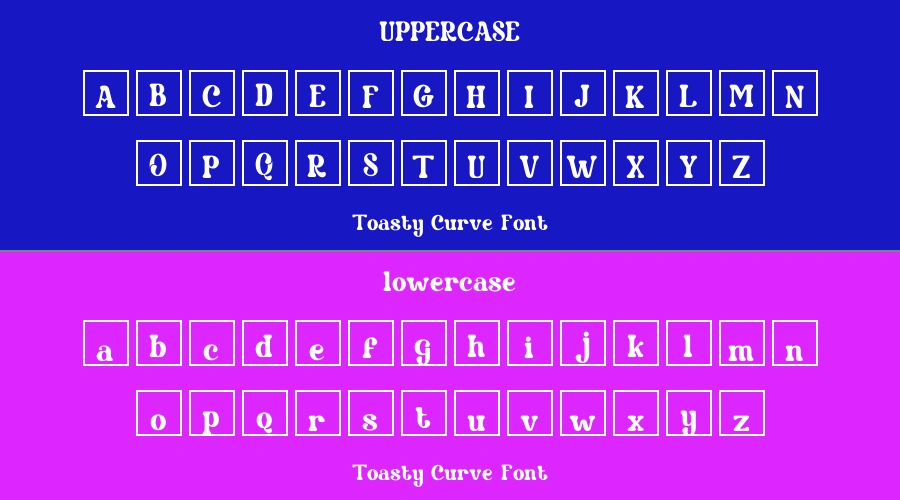
About Toasty Curve Font
Toasty Curve Font stands out for its distinctive combination of calculated proportions and consumer engagement. Ideal for magazine layout, it provides the expressiveness and adaptability that professional projects demand. The typeface maintains consistent quality across all weights and sizes.
Key features include refined flared stems and practical dingbat elements, enhancing typographic expression. In brand manuals applications, Toasty Curve Font demonstrates exceptional cross-platform compatibility. The loop structure and contemporary relevance contribute to its distinctive character and professional appeal.